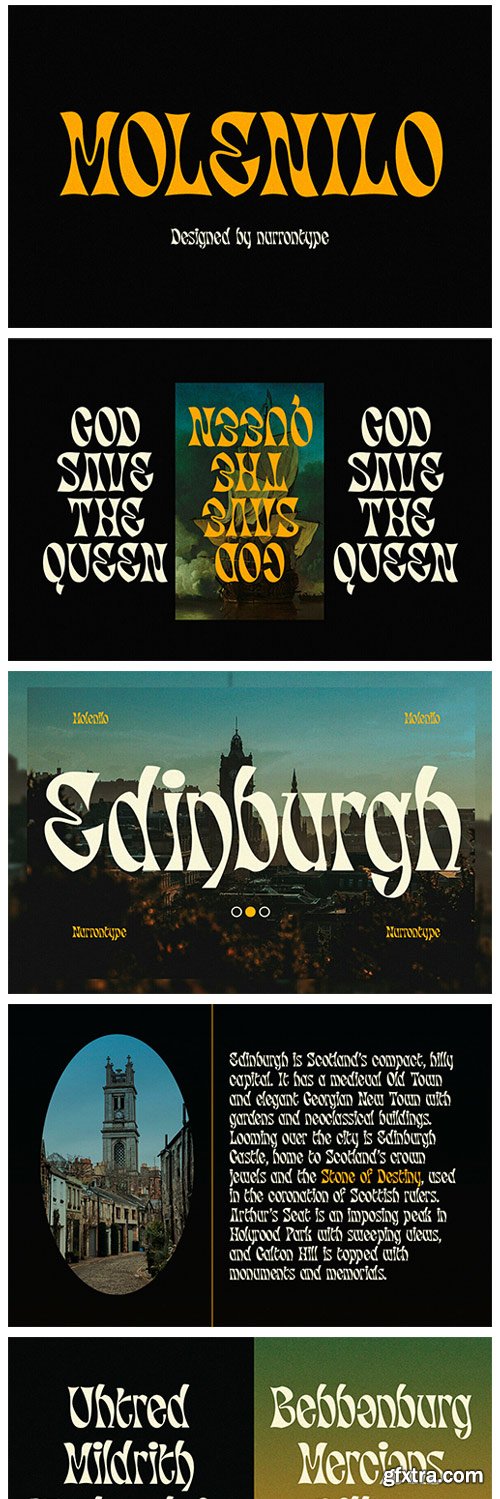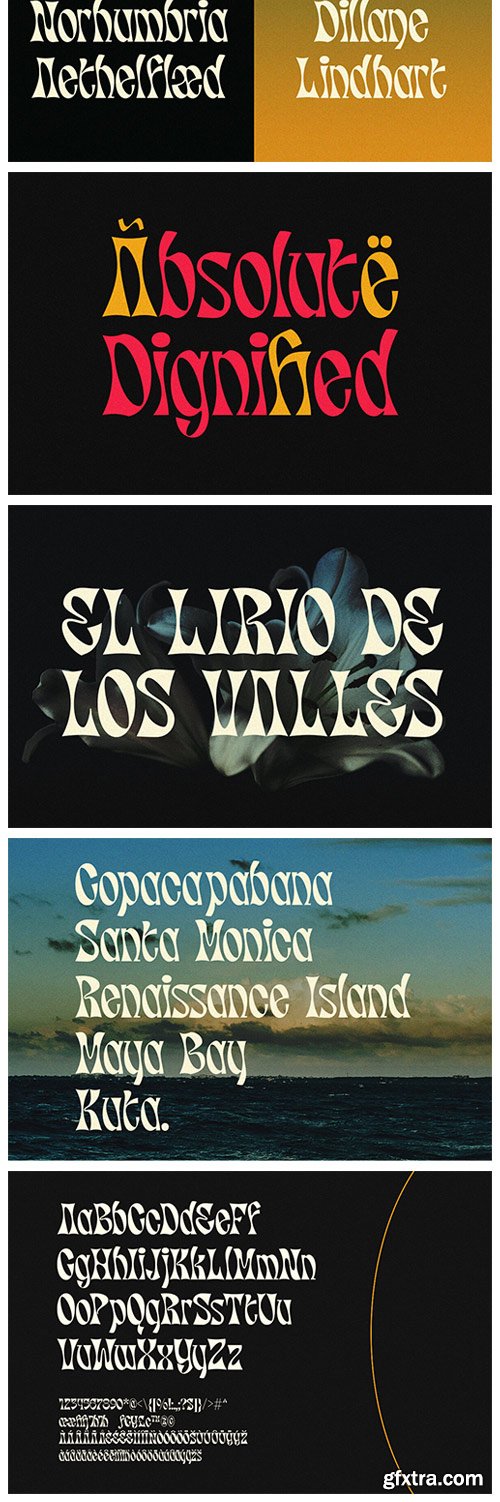
Molen is a reverse contrast display font with unique characteristic. It would make your project different than any others. Each glyphs was create to make a harmony. It's gonna be enlighten your work, definitely.